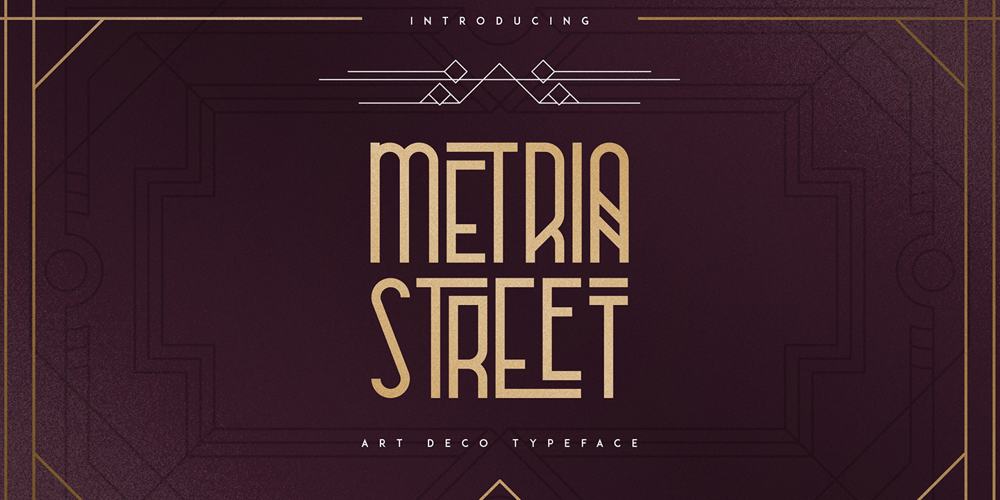
Metria Street Font Family was designed by Vladimir Fedotov, Plamen Petrov and published by VP Creative Shop. Metria Street contains 4 styles and family package options. Introducing Metria Street – Art Deco typefaceMetria Street is bold, Art Deco typeface with 4 weights, ligature glyphs, alternates and multilingual support. It’s a very versatile font that works great in large and small sizes.Metria Street is perfect for branding projects, home-ware designs, product packaging, magazine headers – or simply as a stylish text overlay to any background image. Uppercase, numeral, punctuation & Symbol Light Regular Bold Black Alternate glyphs Ligatures Multilingual support Feel free to contact me if you have any questions!Mock ups and backgrounds used are not included.Thank you! Enjoy!